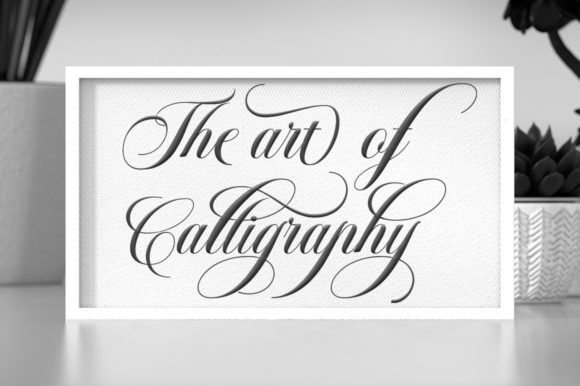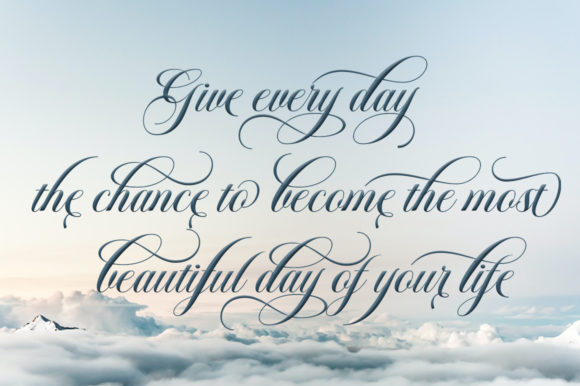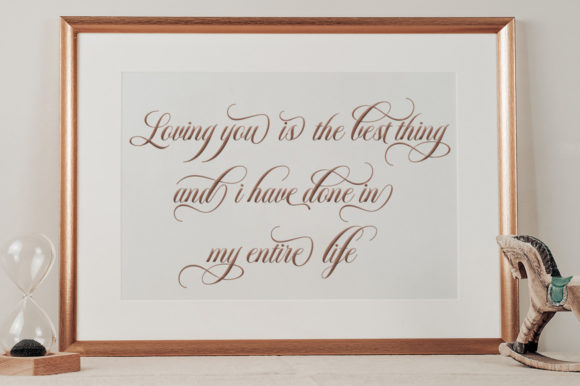
About the Everleigh Font
Discover the charm of Everleigh Font. This font is a perfect blend of modern aesthetics and classic appeal. Everleigh is an elegant script font with a contemporary atmosphere and impeccable form, inspired by timeless classic calligraphy. Not too thin and not too thick, balanced and varied, this font was designed to enhance the beauty of your projects. This font is PUA encoded which means you can access all glyphs and swashes with ease!
Everleigh’s elegant yet contemporary style makes it ideal for headlines, logos, and short-form text in branding materials, invitations, or packaging design where its refined curves add a touch of sophistication. It shines in applications requiring a touch of classic grace, but its legibility is less suited to body text or long paragraphs.
Consider pairing Everleigh with a clean sans-serif like Montserrat for a modern contrast, or a warmer serif like Playfair Display for a more traditional feel. A geometric sans-serif could also create a striking juxtaposition, offering visual interest without overwhelming Everleigh’s delicate forms.
The overall personality of Everleigh is sophisticated and subtly playful; not overly whimsical, but possessing a confident charm. Avoid using it in contexts demanding high readability over extended lengths of text, such as websites or UI elements.
Everleigh Font Usage Examples
Everleigh Font Example